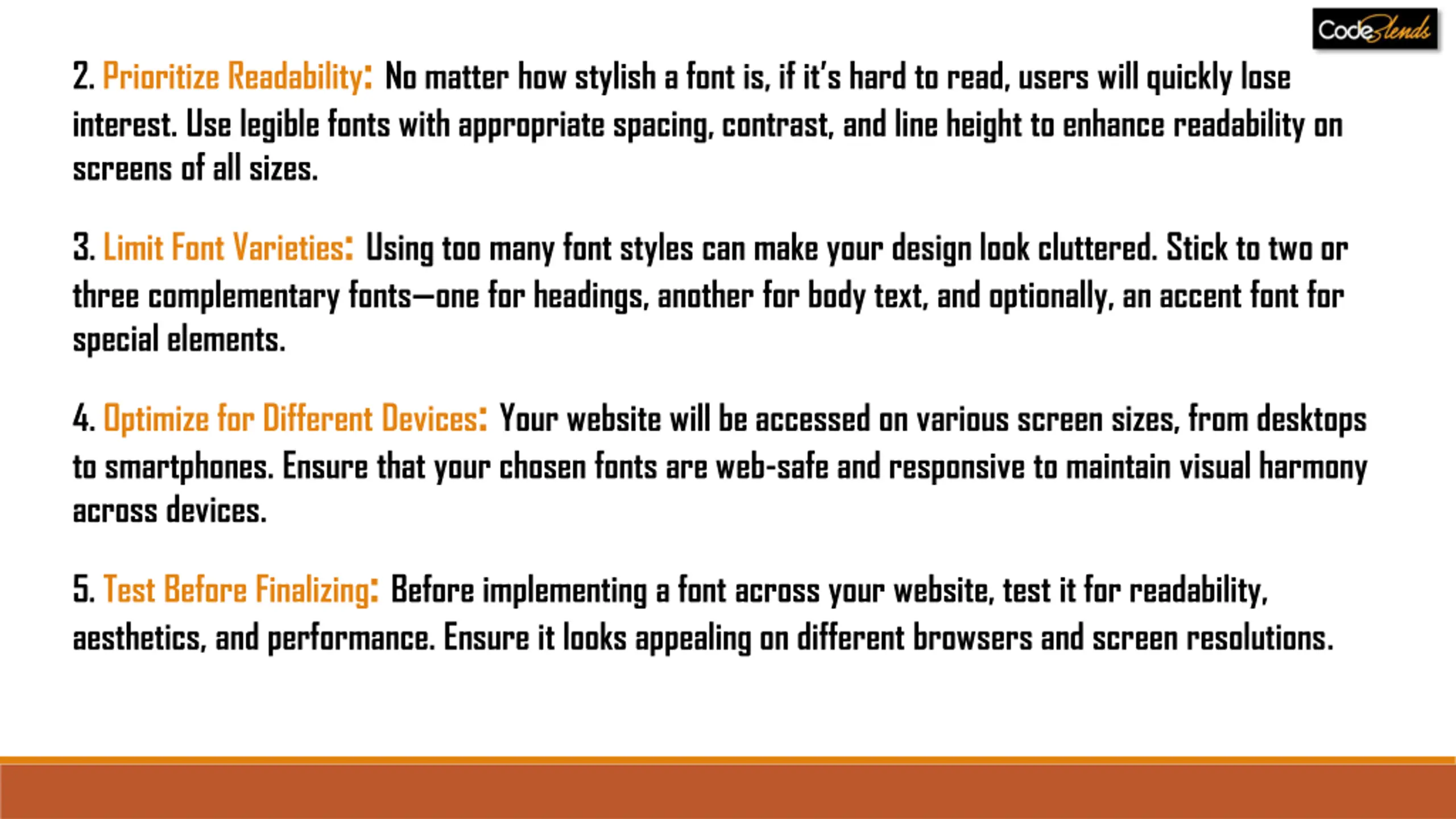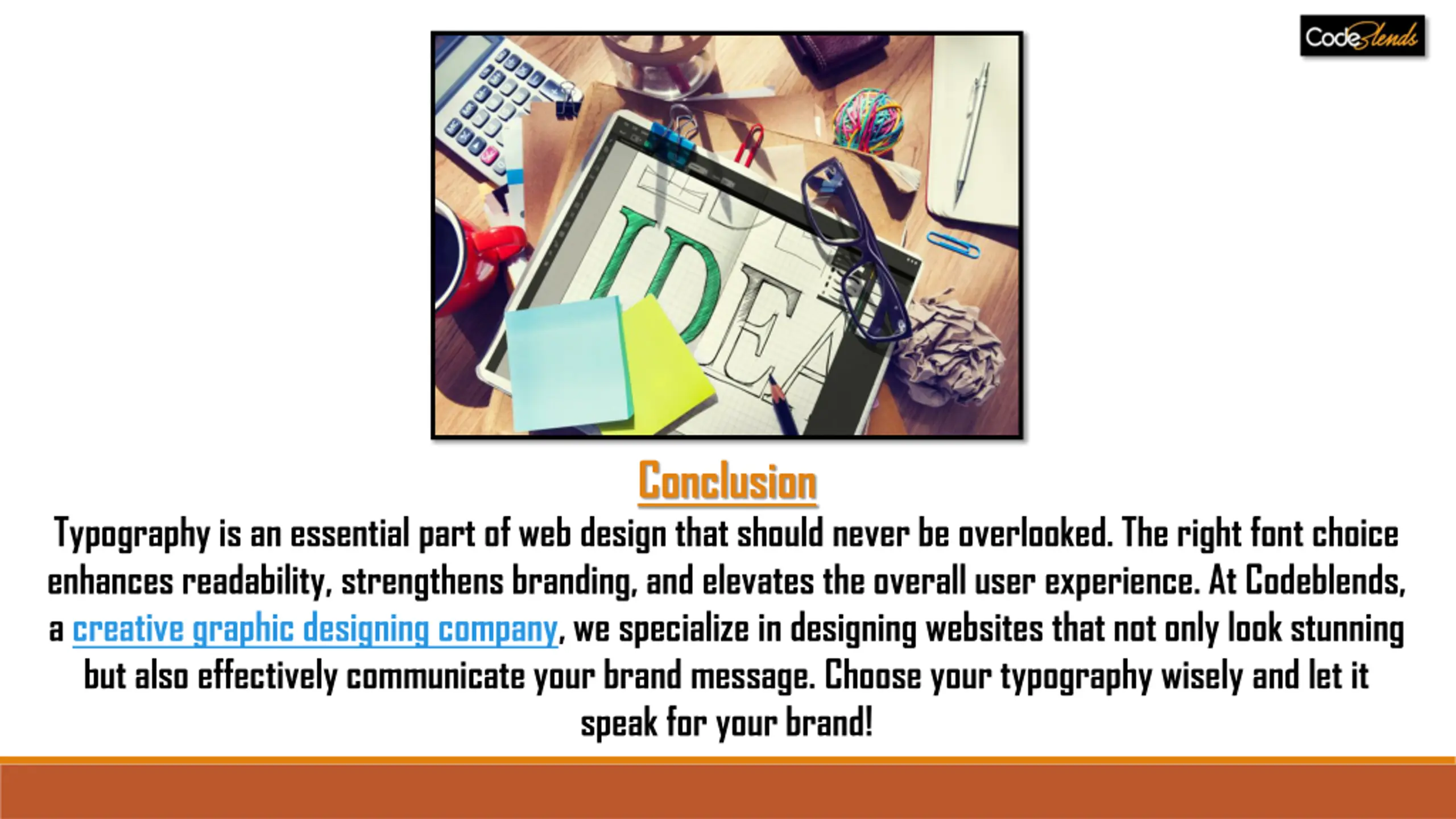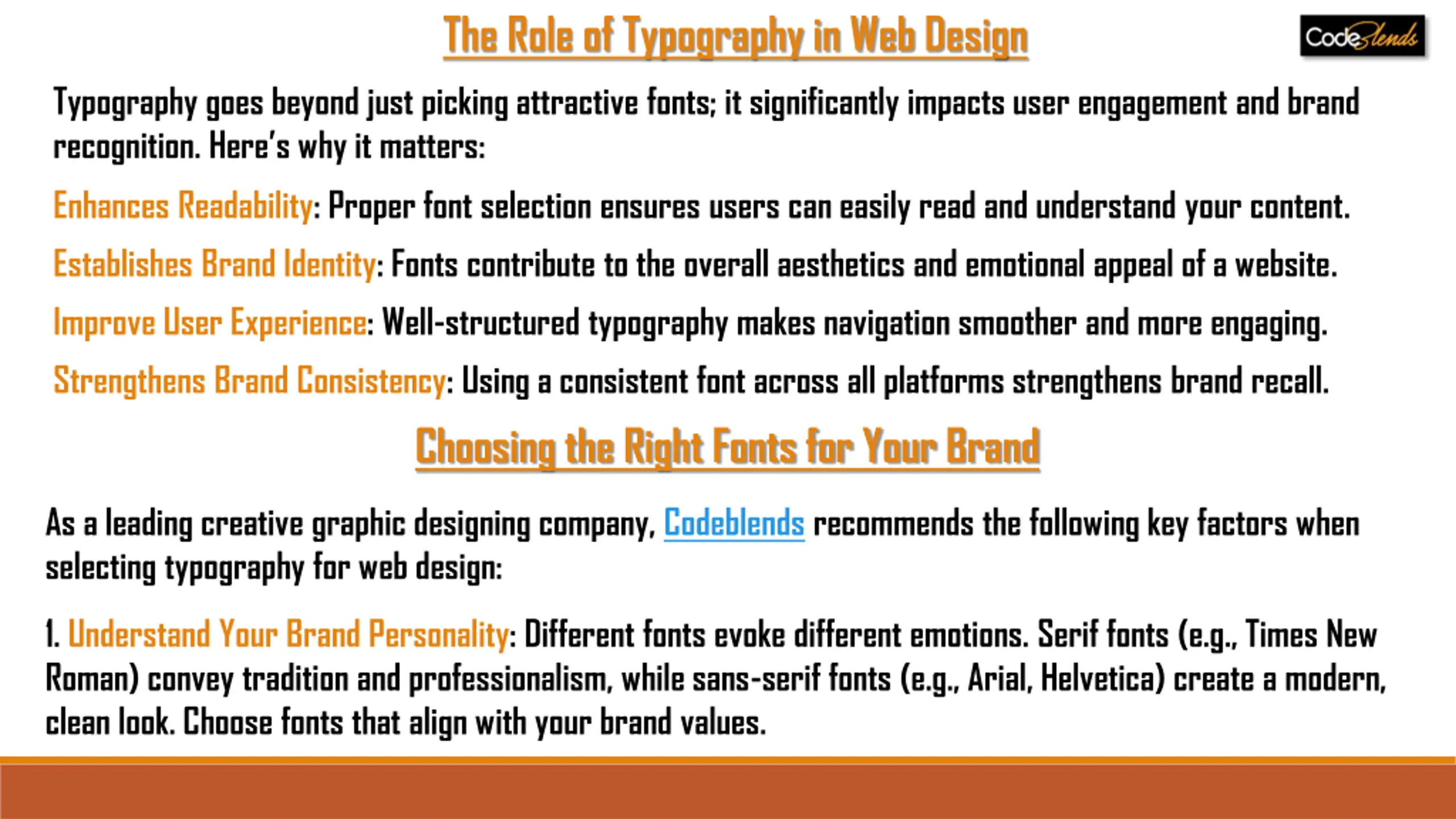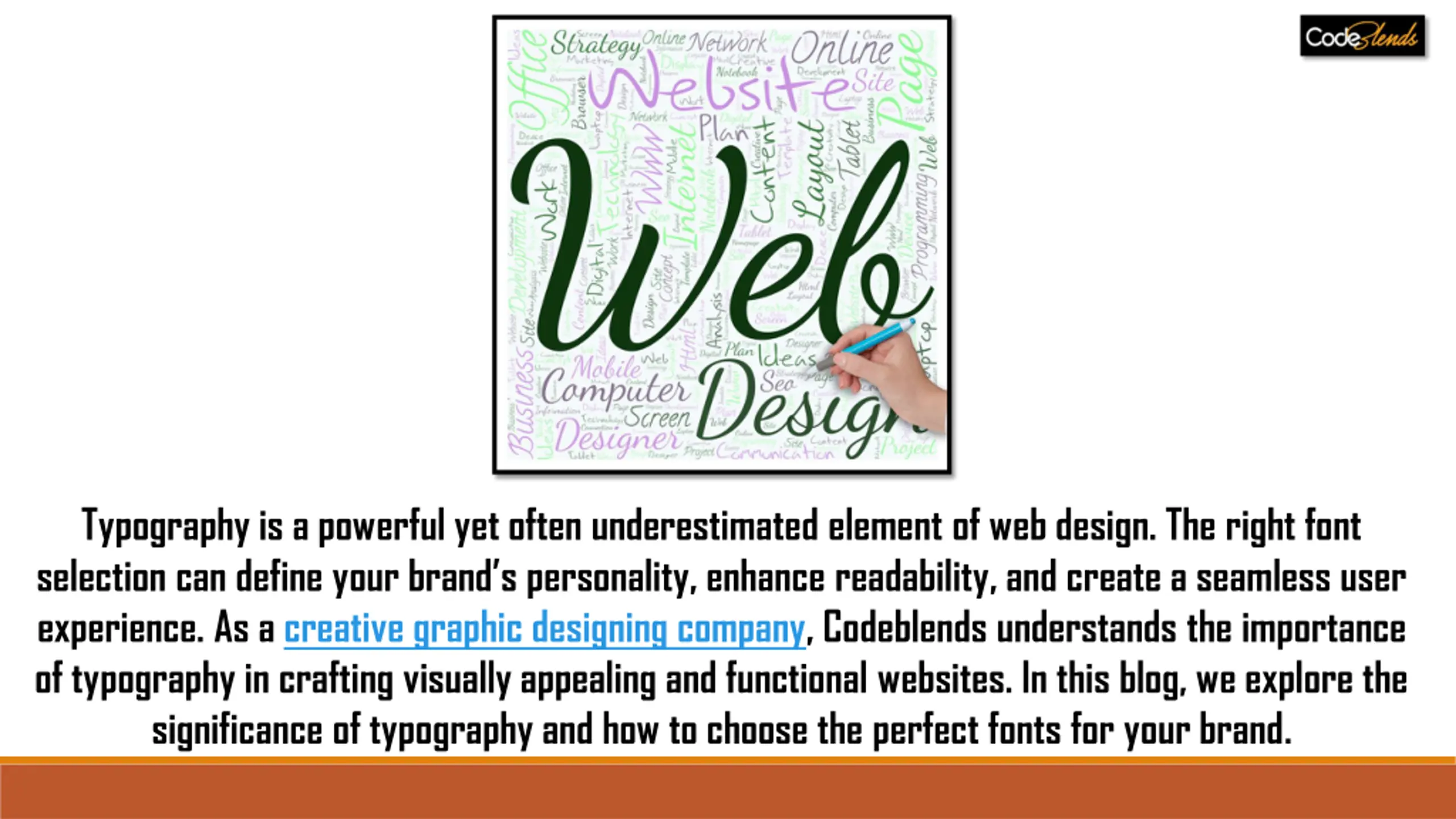
Typography in Web Design Choosing the Right Fonts for Your Brand by Codeblends
Typography is a powerful yet often underestimated element of web design. The right font selection can define your brandu2019s personality, enhance readability, and create a seamless user experience. As a creative graphic designing company, Codeblend
Typography in Web Design: Choosing the Right Fonts for Your Brand by Codeblends
Typography is a powerful yet often underestimated element of web design. The right font selection can define your brand s personality, enhance readability, and create a seamless user experience. As a creative graphic designing company, Codeblends understands the importance of typography in crafting visually appealing and functional websites. In this blog, we explore the significance of typography and how to choose the perfect fonts for your brand.
The Role of Typography in Web Design Typography goes beyond just picking attractive fonts; it significantly impacts user engagement and brand recognition. Here s why it matters: Enhances Readability: Proper font selection ensures users can easily read and understand your content. Establishes Brand Identity: Fonts contribute to the overall aesthetics and emotional appeal of a website. Improve User Experience: Well-structured typography makes navigation smoother and more engaging. Strengthens Brand Consistency: Using a consistent font across all platforms strengthens brand recall. Choosing the Right Fonts for Your Brand As a leading creative graphic designing company, Codeblends recommends the following key factors when selecting typography for web design: 1. Understand Your Brand Personality: Different fonts evoke different emotions. Serif fonts (e.g., Times New Roman) convey tradition and professionalism, while sans-serif fonts (e.g., Arial, Helvetica) create a modern, clean look. Choose fonts that align with your brand values.
2. Prioritize Readability: No matter how stylish a font is, if its hard to read, users will quickly lose interest. Use legible fonts with appropriate spacing, contrast, and line height to enhance readability on screens of all sizes. 3. Limit Font Varieties: Using too many font styles can make your design look cluttered. Stick to two or three complementary fonts one for headings, another for body text, and optionally, an accent font for special elements. 4. Optimize for Different Devices: Your website will be accessed on various screen sizes, from desktops to smartphones. Ensure that your chosen fonts are web-safe and responsive to maintain visual harmony across devices. 5. Test Before Finalizing: Before implementing a font across your website, test it for readability, aesthetics, and performance. Ensure it looks appealing on different browsers and screen resolutions.
Conclusion Typography is an essential part of web design that should never be overlooked. The right font choice enhances readability, strengthens branding, and elevates the overall user experience. At Codeblends, a creative graphic designing company, we specialize in designing websites that not only look stunning but also effectively communicate your brand message. Choose your typography wisely and let it speak for your brand!